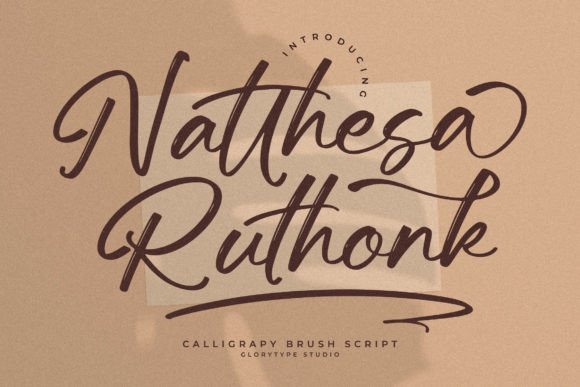
Step into a world of artistry where your creative visions come alive with the Natthesa Ruthonk Font, a breathtaking calligraphy brush script born from the heart of Glorytype Studio. This exquisite handwritten typeface dances across your designs, leaving a trail of elegance and captivating strokes that will mesmerize you.
Awaken your inner artist and let your imagination soar as you explore the boundless possibilities of this enchanting script font. Its graceful curves and expressive lines invite you to create logos that exude sophistication, branding projects that captivate your audience, homeware designs that radiate warmth and uniqueness, and product packaging that elevates your products to new heights.
With Natthesa Ruthonk, transform your mugs, quotes, and posters into works of art. Its delicate touch adds a personal flair to everything you create, making your designs stand out with a touch of exclusivity. Let your creativity flourish as you design shopping bags, t-shirts, and book covers that resonate with your unique style.
Elevate your name cards, invitation cards, and greeting cards with the timeless charm of Natthesa Ruthonk. Its fluid lines and elegant flourishes add a touch of sophistication, ensuring that your special events and correspondence leave a lasting impression. Unleash your artistry and design labels, photography, and watermarks that capture the essence of your brand and make your creations truly unforgettable.
Dive into the world of Natthesa Ruthonk and unlock a realm of creative possibilities. Its versatility knows no bounds, adapting seamlessly to logos, branding, homeware, product packaging, mugs, quotes, posters, shopping bags, t-shirts, book covers, name cards, invitation cards, greeting cards, labels, photography, watermark, special events, and so much more. This font is your gateway to a world of endless design opportunities, ready to transform your visions into reality.